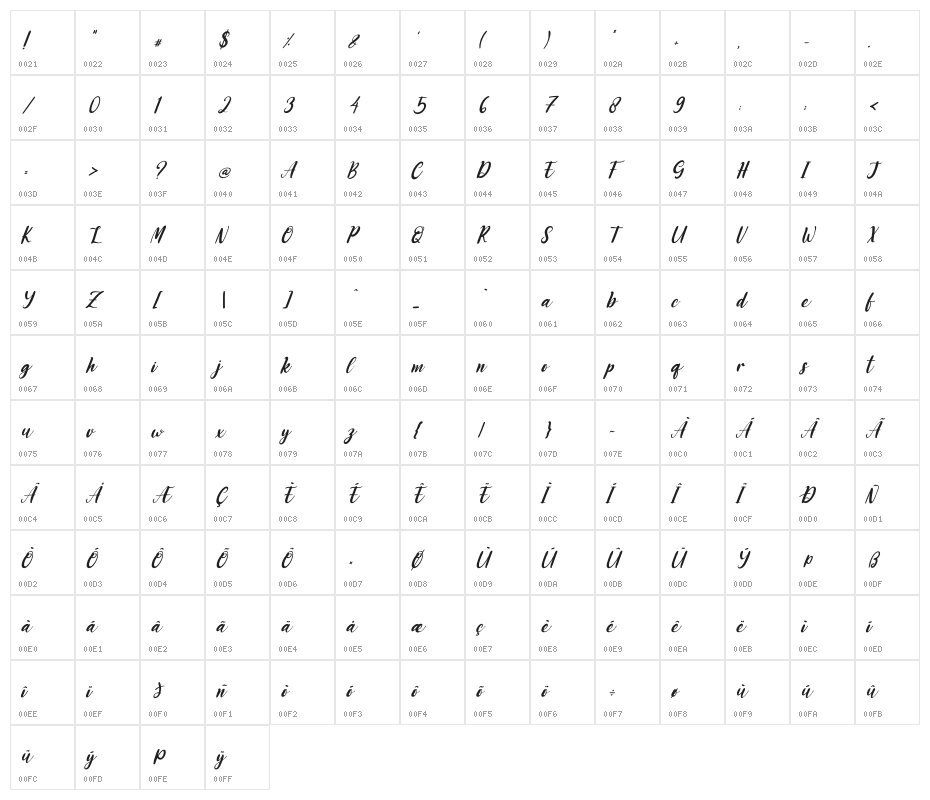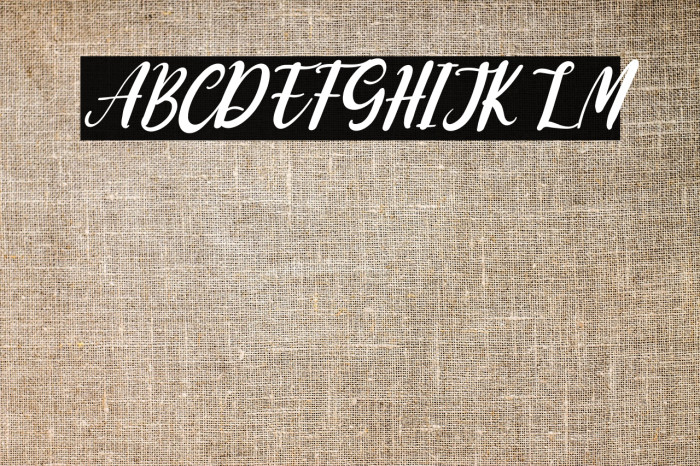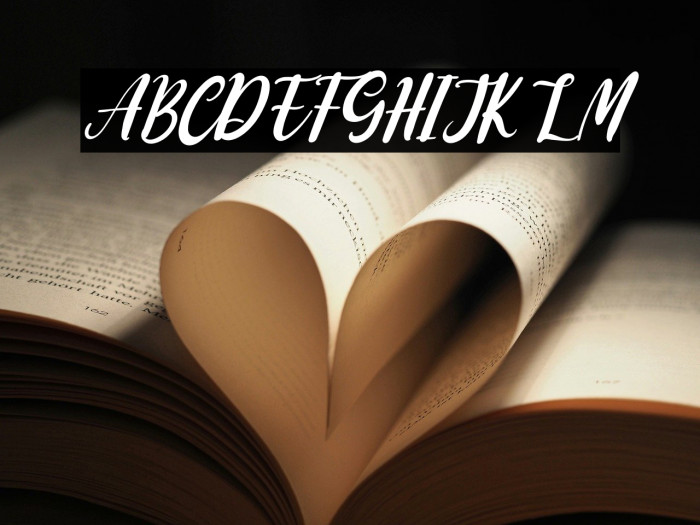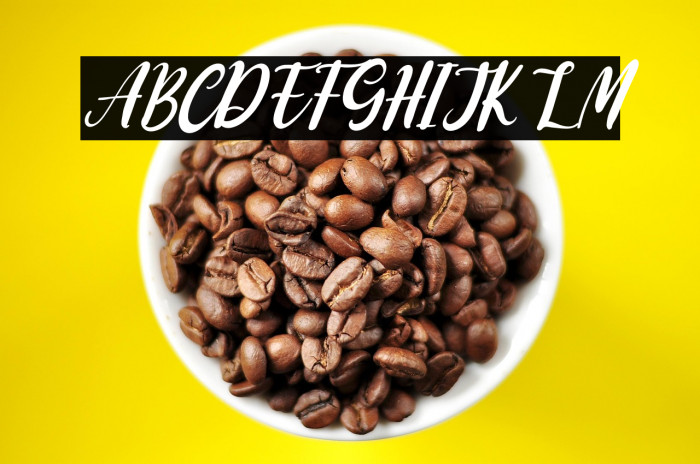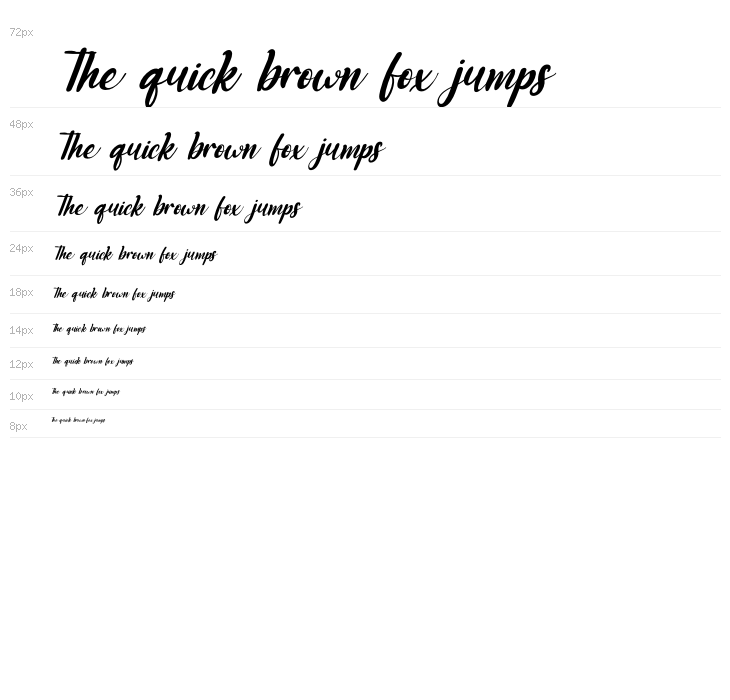
Shaffari Italic Font
Shaffari Italic Description
This elegant script font features a flowing, cursive style with a slight slant, giving it a sophisticated and dynamic appearance. The characters are well-connected, with smooth transitions between strokes, creating a harmonious and fluid look. The uppercase letters are ornate, with distinctive flourishes, while the lowercase letters maintain a consistent rhythm and balance. The numerals are stylishly curved, complementing the overall aesthetic. Special characters are thoughtfully designed to match the font's graceful style, making it suitable for a variety of creative applications.
| Overall Style | Elegant, Decorative |
| Proposed Projects | Ideal for wedding invitations, elegant branding, greeting cards, and artistic projects. |